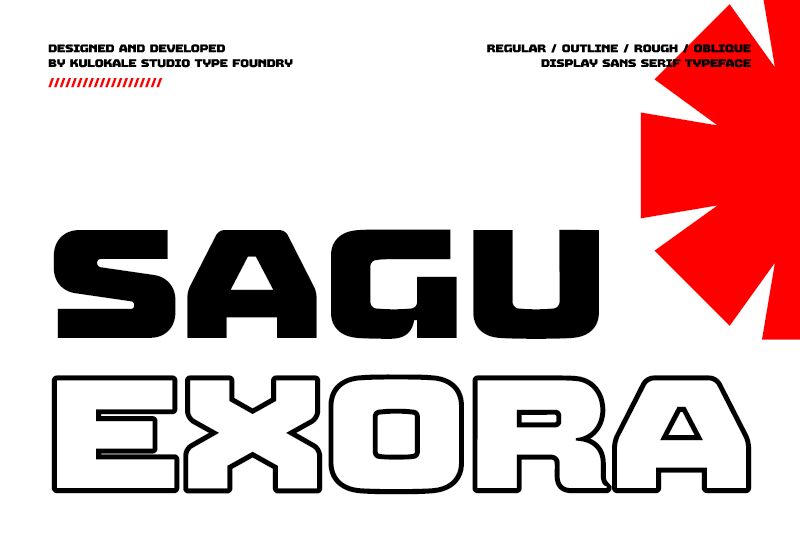
SaguExora-Regular
Sagu Exora, a brilliant creation by Kulokale Studio, is an extraordinary display font that exudes a futuristic essence. With its extra-bold weight and expanded width, this font commands attention and demands to be noticed. Perfect for a wide range of projects, Sagu Exora adds a touch of innovation and sophistication to branding materials, logo designs, tech-related websites, and futuristic-themed advertisements. Its sleek curves and distinctive letterforms make it an ideal choice for sci-fi movie posters or cutting-edge product packaging. Unleash your creativity with Sagu Exora and take your designs to the next level.
Kulokale Studio
M Arif Dwi Prasetyo & Eko Nurcahyo